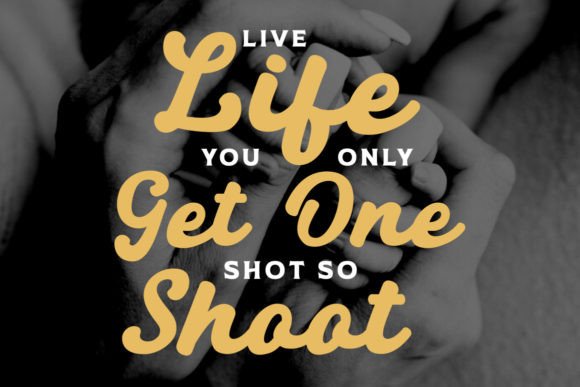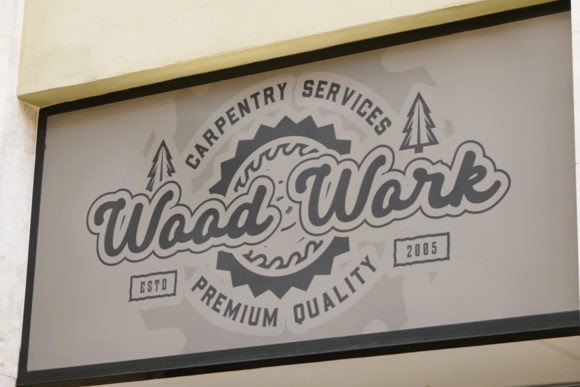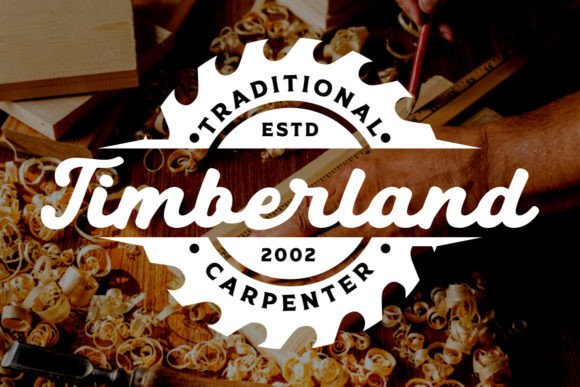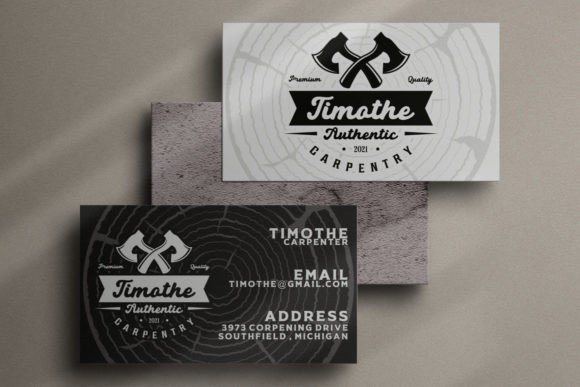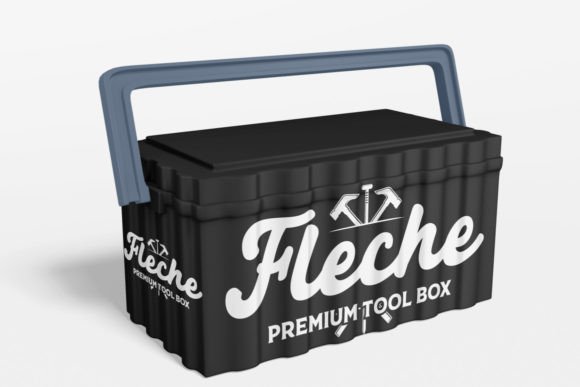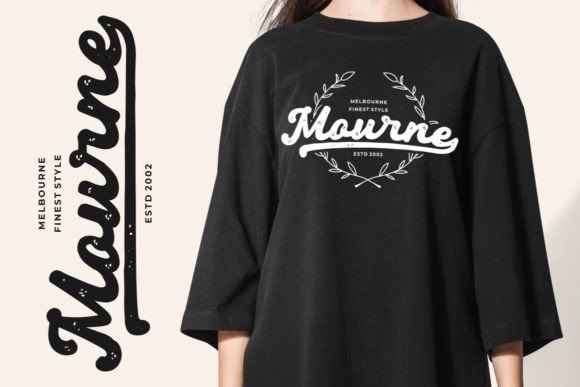
Introduction to Locke Port Font
Locke Port – Modern Script Font is a captivating font with a modern yet classic script style.
Its soft rounded edges and groovy appearance add a touch of elegance and sophistication to any design This font is particularly well-suited for vintage-inspired projects, logos, emblems, badges, titles, posters, and more.